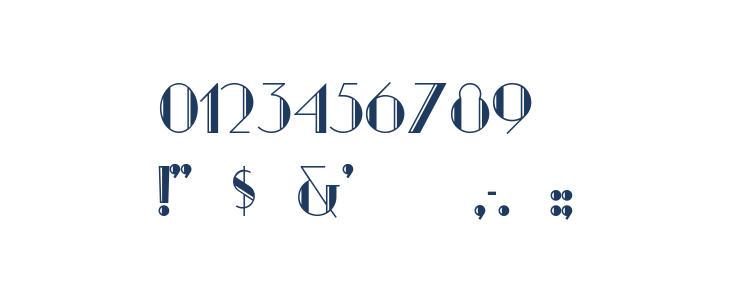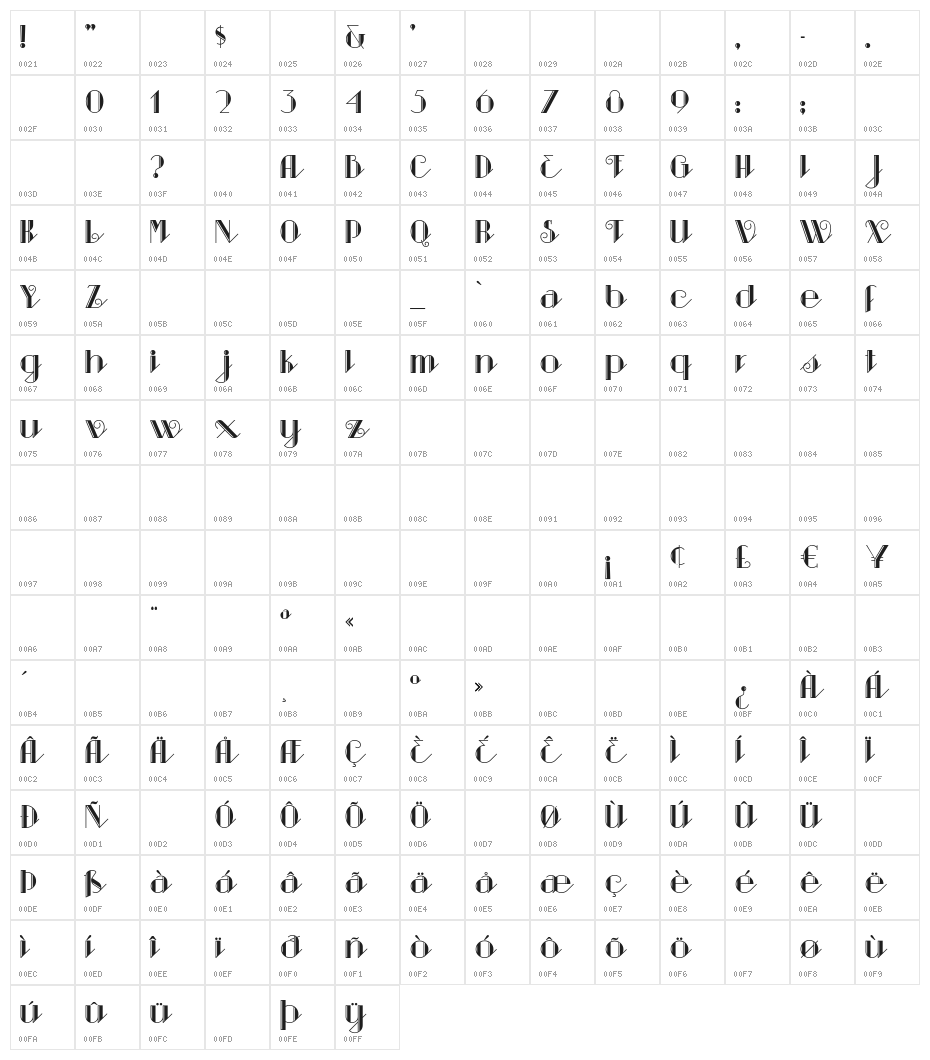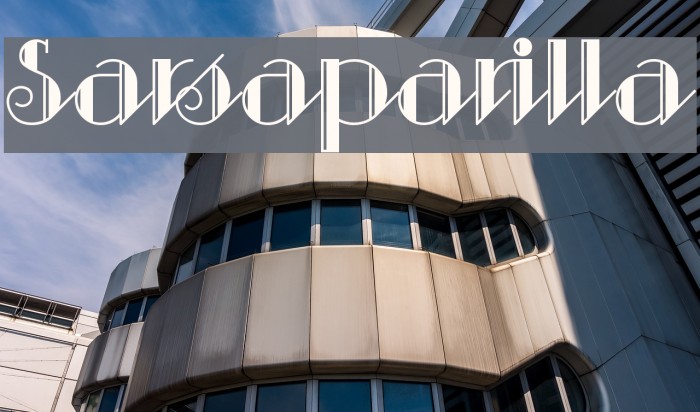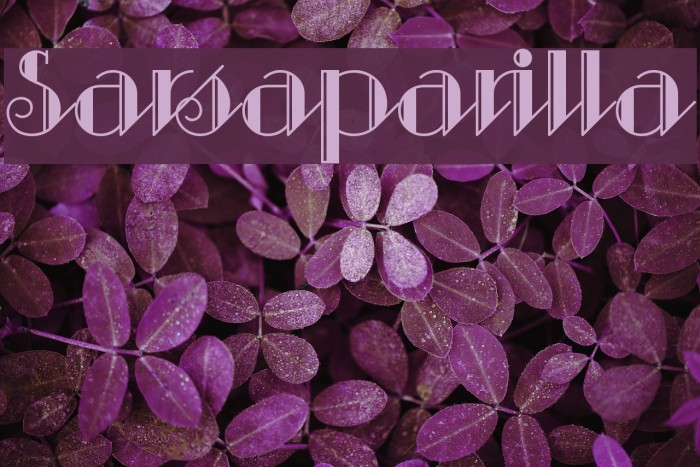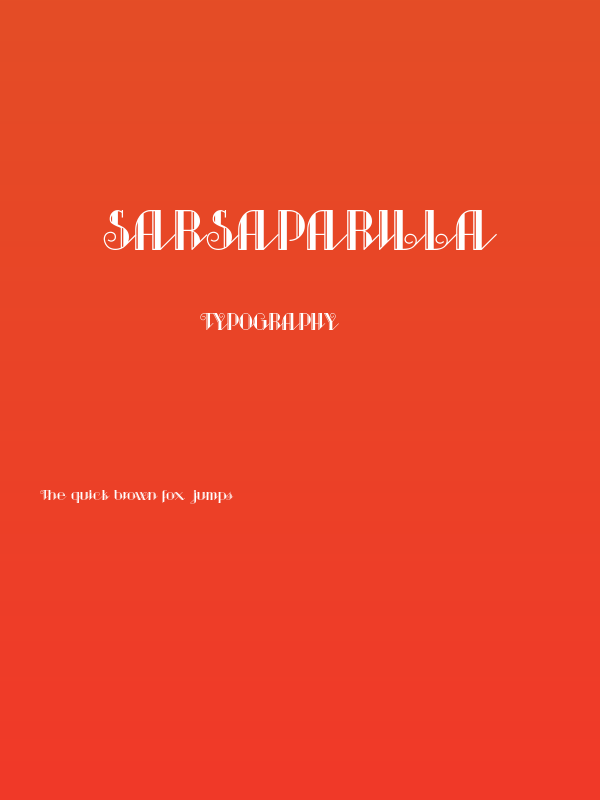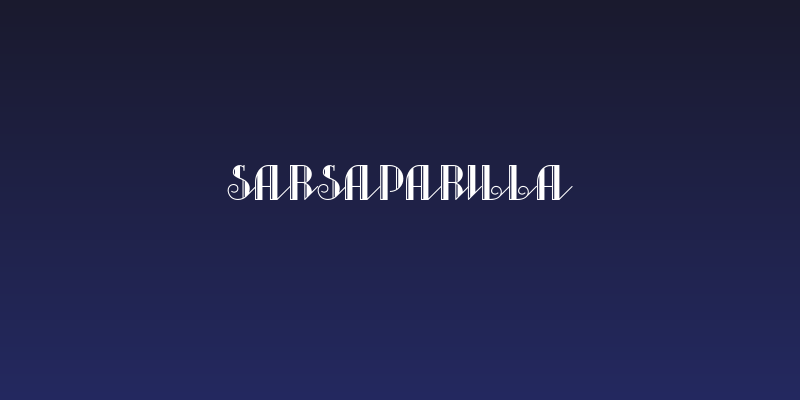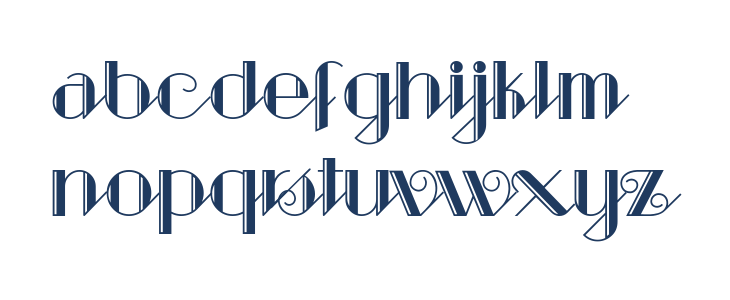
Sarsaparilla Font
Sarsaparilla Description
This font features a unique blend of modern and decorative styles, characterized by its bold, angular lines and intricate swirls. The uppercase letters are particularly striking, with sharp edges and elegant curves that create a sense of movement and flair. The lowercase letters maintain this dynamic style, offering a cohesive look throughout the typeface. The numerals are equally distinctive, with a consistent design that complements the alphabet. Special characters are thoughtfully designed, adding to the font's versatility. Overall, this font exudes a sense of sophistication and creativity, making it suitable for a variety of design projects.
| Proposed Projects | Ideal for branding, posters, invitations, and any project requiring a touch of elegance and creativity. |